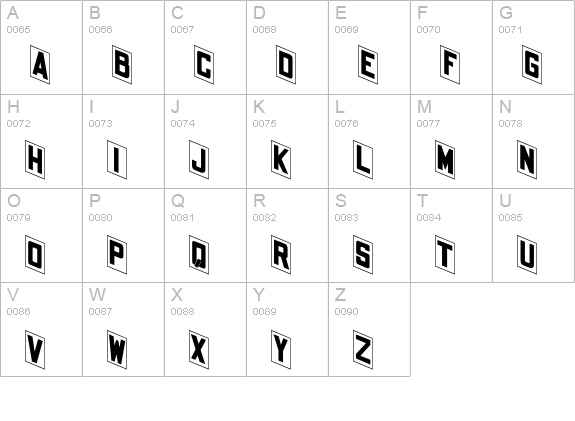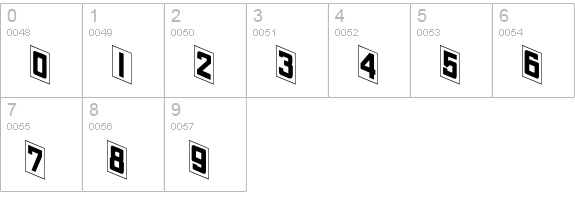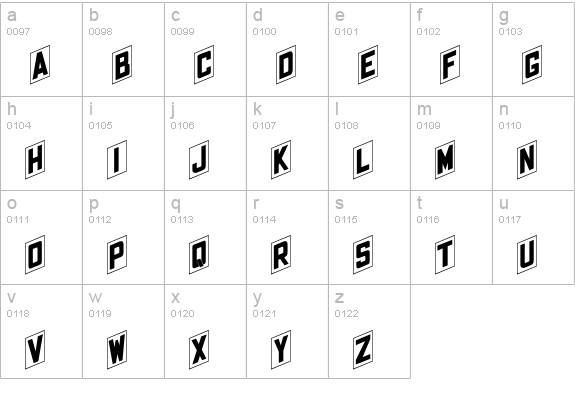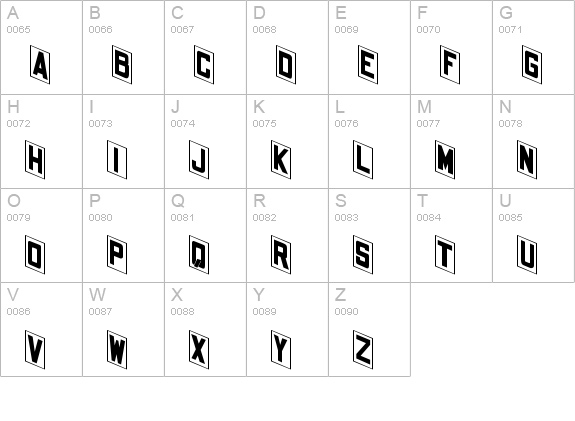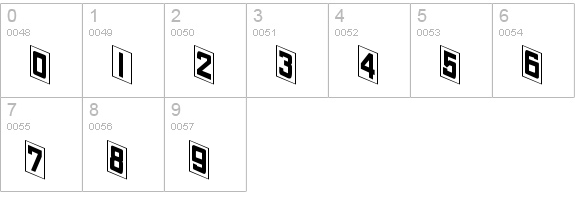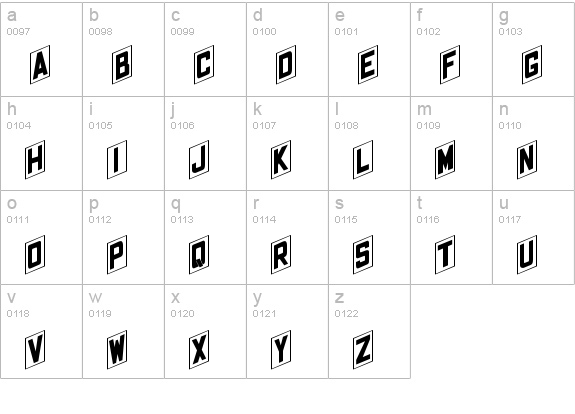
Bajazzo Font Details
Bajazzo font is a stunning display typeface that exudes elegance and sophistication. Its stylish letterforms and unique design make it perfect for adding a touch of class to any project. Whether you're designing a logo, poster, or branding materials, Bajazzo font will surely make a statement. What sets Bajazzo font apart is not only its exquisite aesthetics but also its versatility. This font can be used for a wide range of design projects, from editorial layouts to packaging design. Its timeless appeal ensures that your creations will stand out and leave a lasting impression on your audience. And the best part? Bajazzo font is available for free download at FontsMarket.com. So you can enjoy the beauty and functionality of this font without breaking the bank. Don't miss out on the opportunity to elevate your designs with Bajazzo font today!